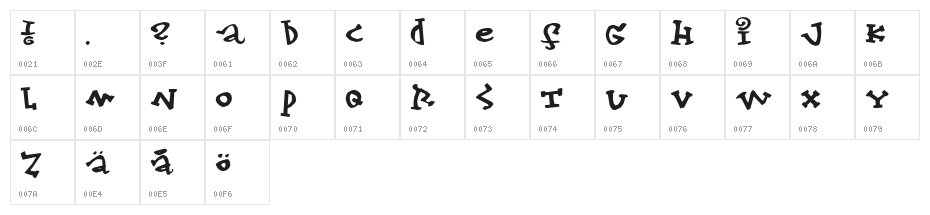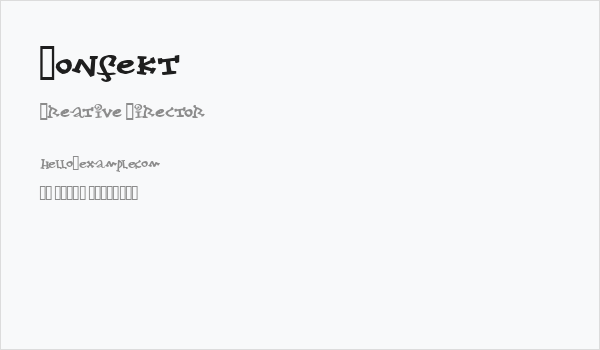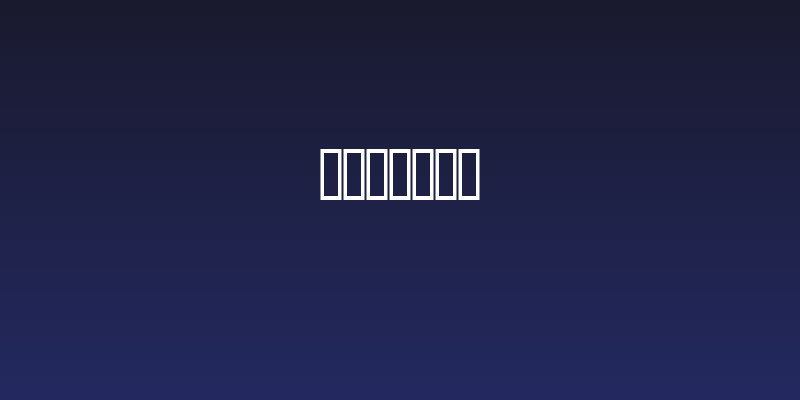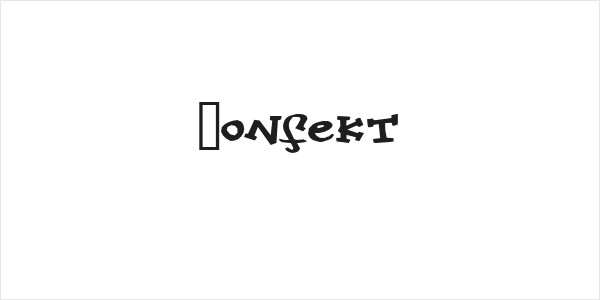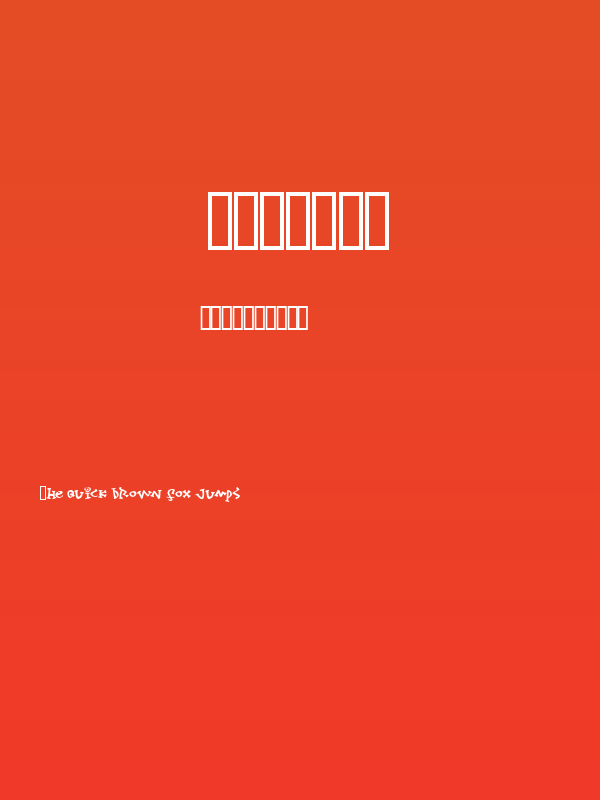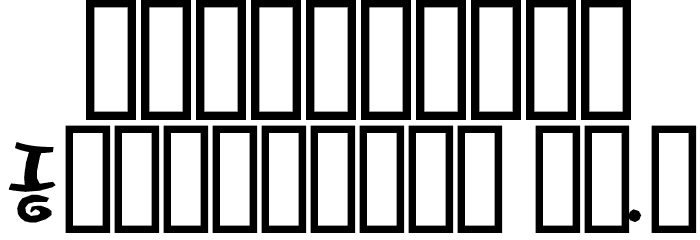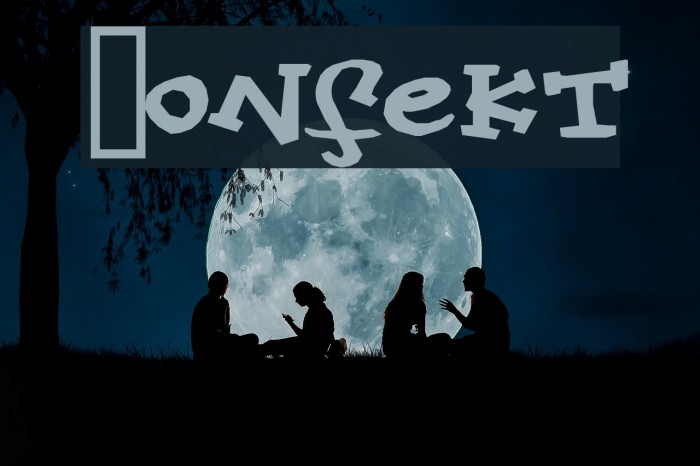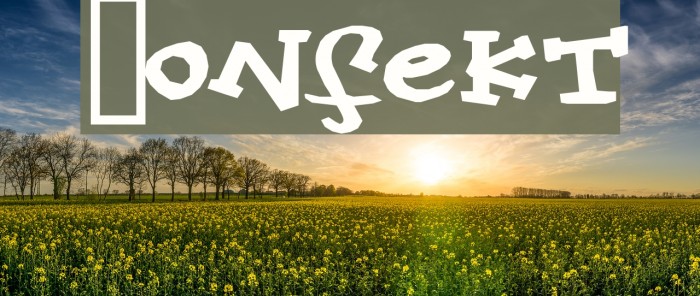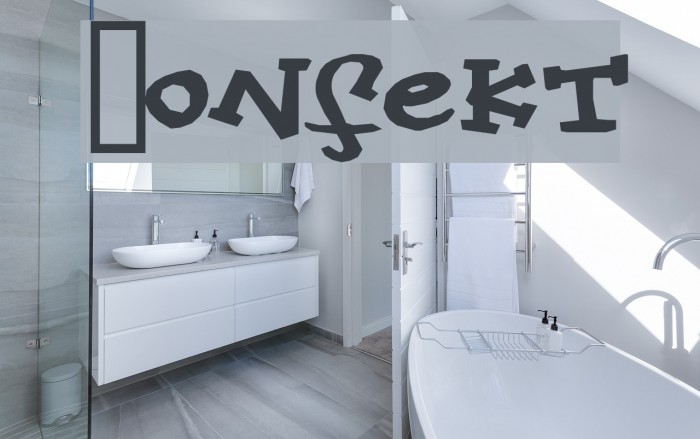
Konfekt Font
Konfekt Description
This font features a playful and whimsical style with a hand-drawn appearance. The letters are irregular and slightly tilted, giving it a dynamic and lively feel. The strokes vary in thickness, adding to its quirky character. The overall design is reminiscent of a casual, artistic script, making it suitable for creative and informal projects. The font's unique style is eye-catching and can add a fun element to any design.